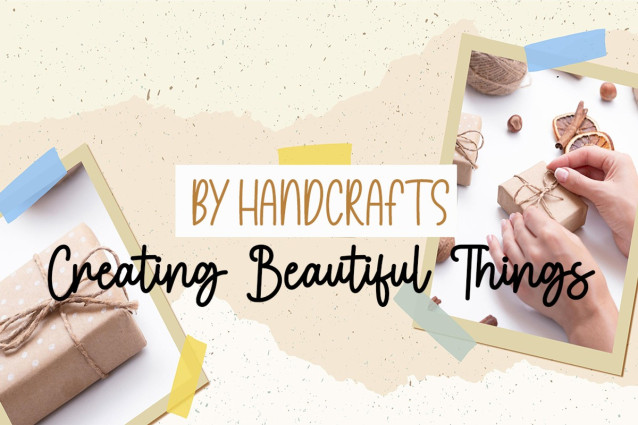
Fresh Baked Font
Fresh Baked Font is a stylish and delicate duo font (sans serif and script) suitable for a wide spectrum of applications. From greeting cards to headlines, this font will guarantee a romantic touch to each of your creations!